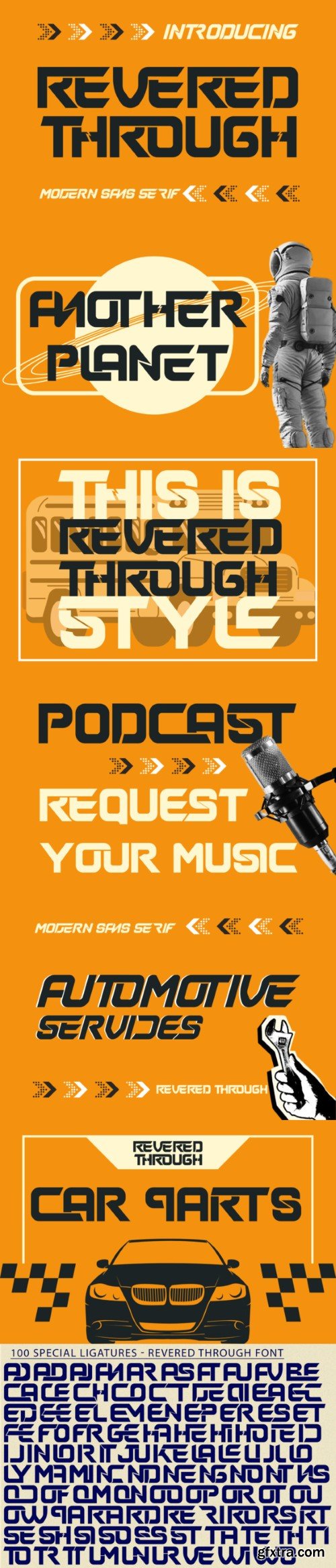
敬畏通过字体
Revered Through is a modern, sporty, and cool sans-serif font that commands attention with its bold yet sleek design. With clean lines and dynamic angles, it embodies a sense of strength and energy, making it ideal for sports-related branding, posters, and dynamic display typography.